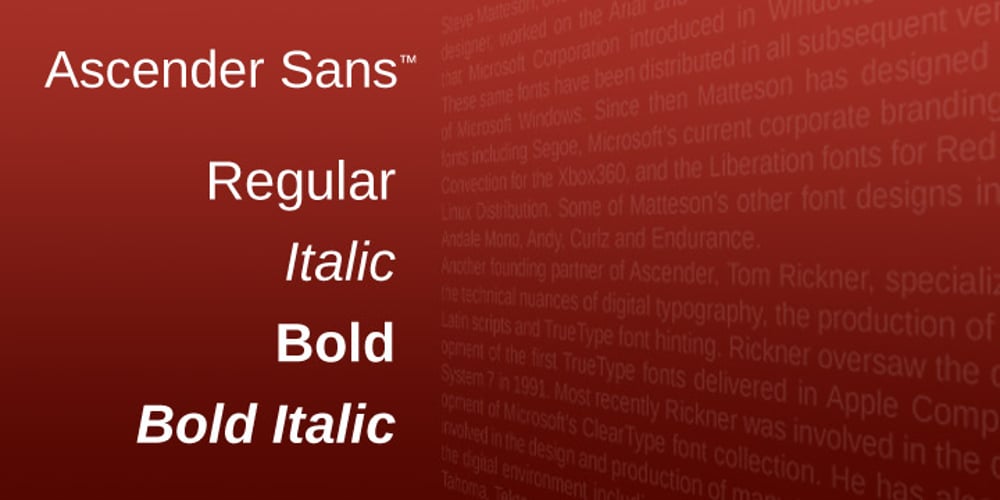
Ascender Sans Font Family was designed by Steve Matteson and published by Ascender. Ascender Sans contains 4 styles and family package options. Ascender Sans was designed by Steve Matteson as an inventive, exhilarating sans serif design that is metrically compatible with Arial. Ascender Sans offers enhanced on-screen readability characteristics and the pan-European WGL character set and solves the needs of developers looking for width-compatible fonts to address document portability across different platforms. The Ascender Sans Narrow offers enriched on-screen readability characteristics and the pan-European WGL character set and resolve the needs of developers looking for width-compatible fonts to address document portability across platforms. Ascender Sans Narrow contains regular, italic, bold and bold italic fonts.